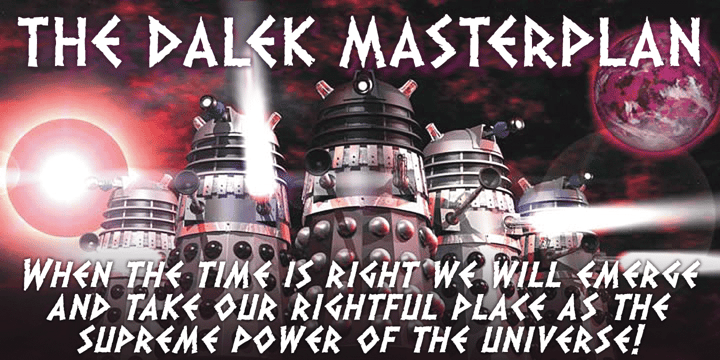
Dalek
by K-Type
About Dalek Font Family
DALEK is a distressed, small caps typeface based on the lettering used in the Dalek Book of 1964 and in the Daleks strip in TV21 comic. The fonts have overtones of Greek, Phoenician and Runic alphabets. The updated Dalek fonts include a full complement of Latin Extended-A characters and numerous subtle outline improvements. In addition to the original regular font, Heavy and Light weights are available, and each weight is now supplied with a new Italic (optically corrected oblique). Also check out Dalek Pinpoint, a clean and precise version of the Dalek typeface.